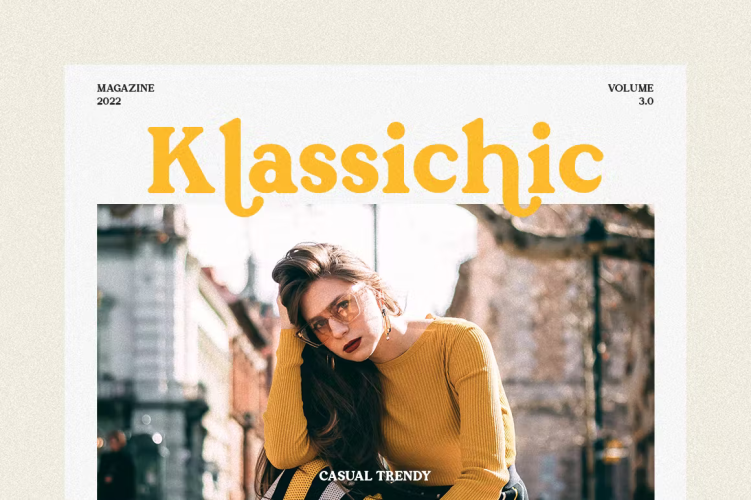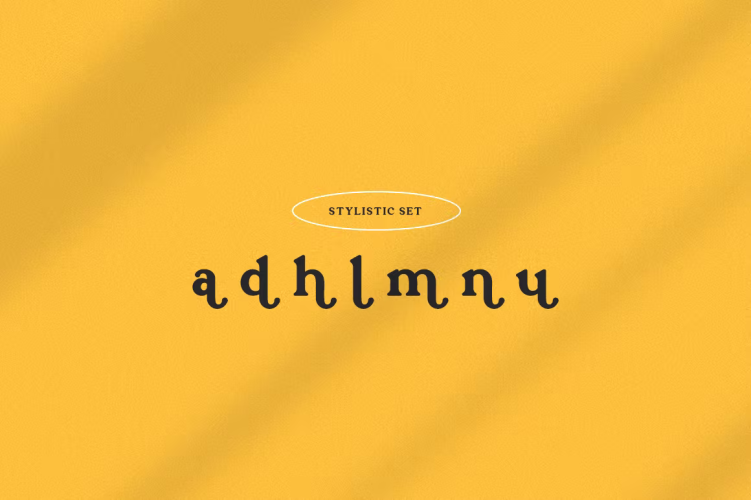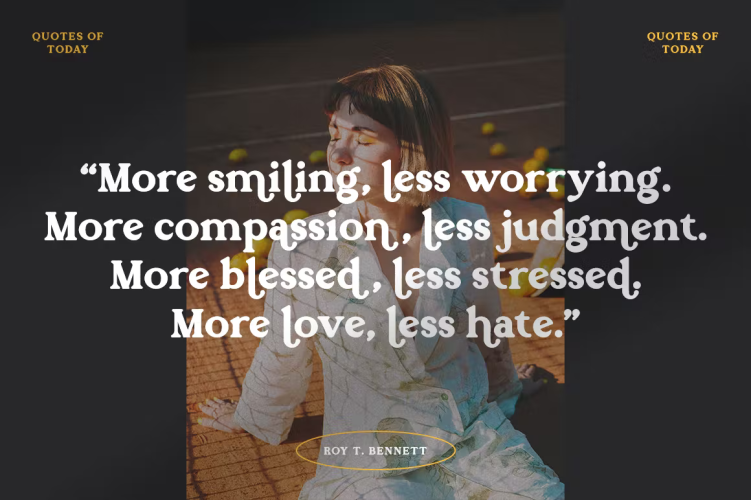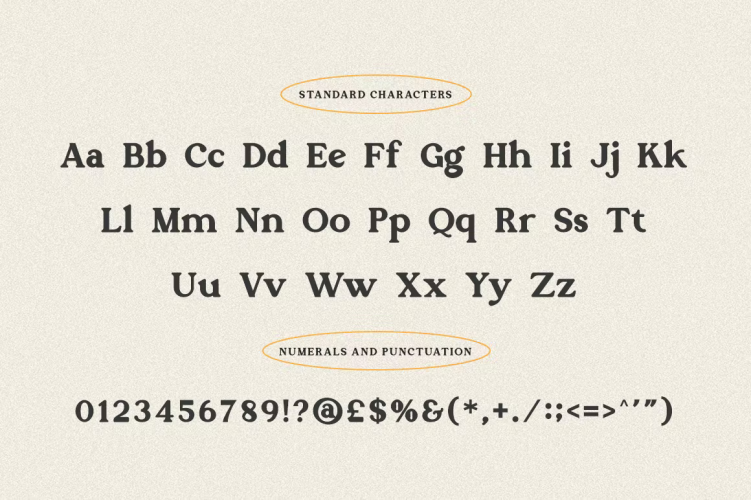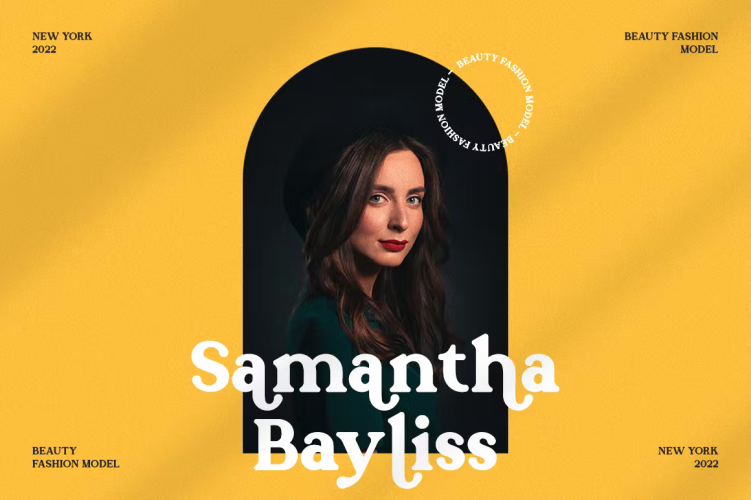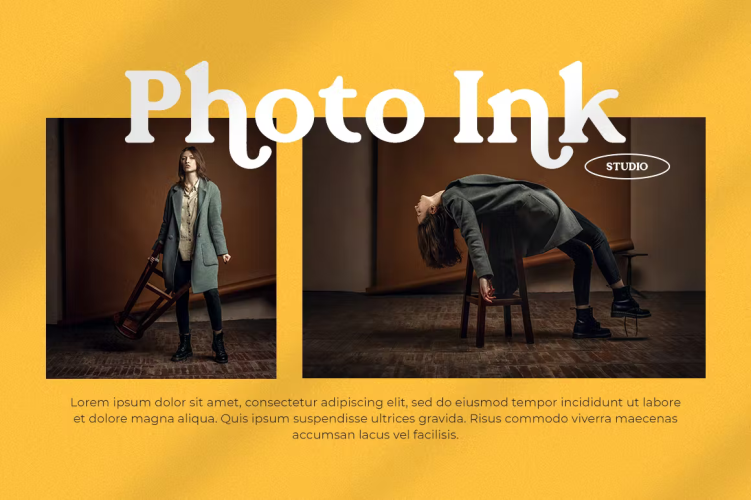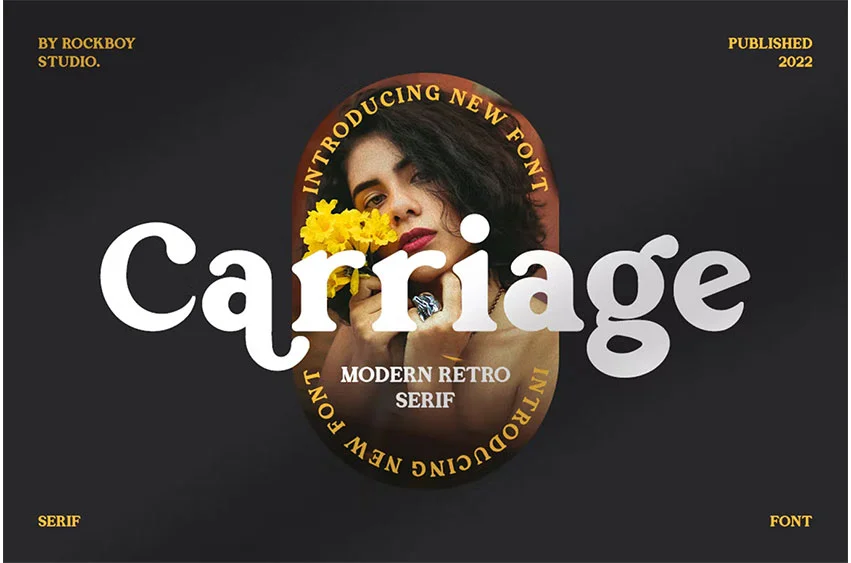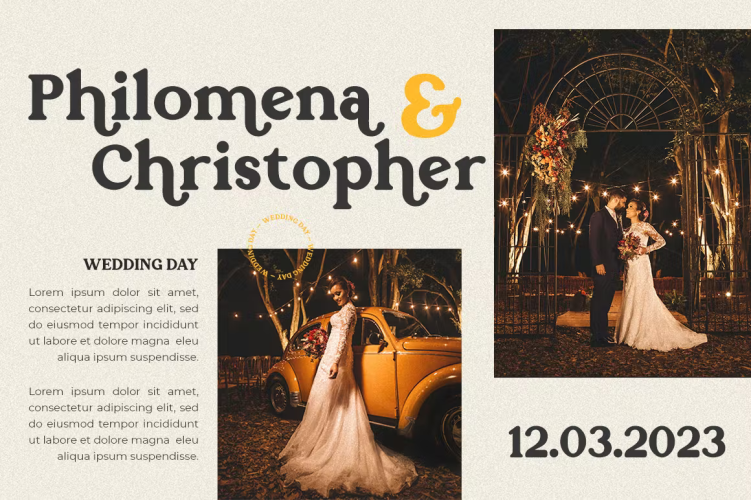
Carriage Font
Carriage Font is an elegant and distinct serif font. Suitable to a wide variety of designs due to its neat and simple style, this font has the potential to become your f…
Carriage Font is an elegant and distinct serif font. Suitable to a wide variety of designs due to its neat and simple style, this font has the potential to become your favorite go-to font, no matter the occasion!
Where Carriage Font works best
Carriage Font gives long-form text a classic, trustworthy rhythm — ideal for magazine spreads, annual reports and book interiors.
Pair Carriage Font with generous letter-spacing for wordmarks in fashion, hospitality, wine and jewellery branding.
Use Carriage Font for slide titles in Keynote, PowerPoint or Google Slides to add authority without looking dated.
What is Carriage Font good for?
Carriage Font is a Serif Fonts typeface tagged Clean, Elegant, Professional, Serif. It works well for headlines, logos, posters, social media graphics and branding projects that need a distinctive serif fonts look.